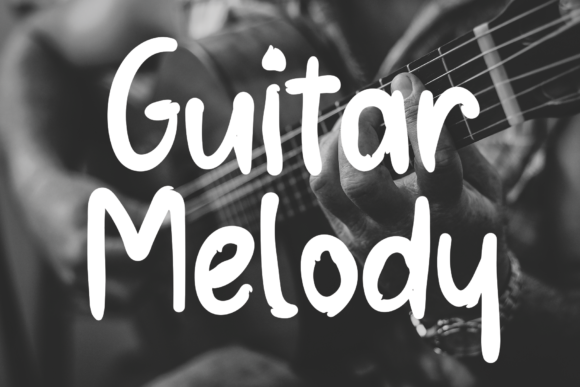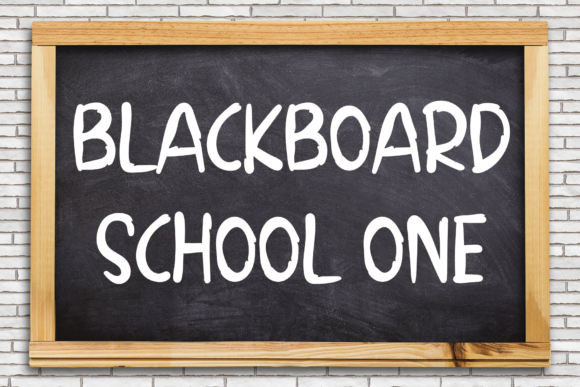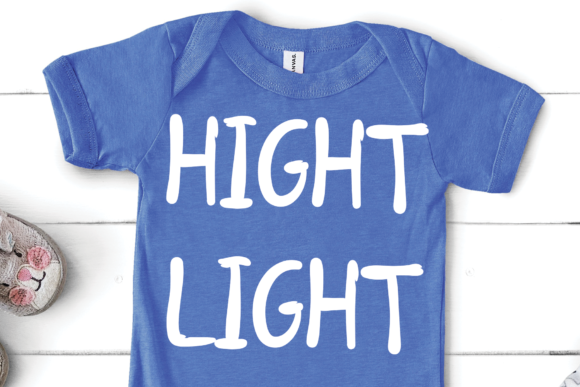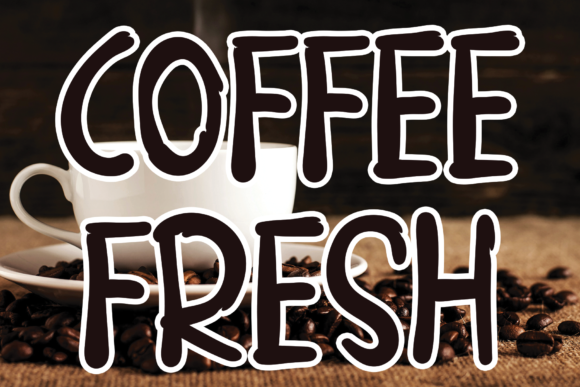
The Ultimate Guide to Green Slime Font: A Fun and Friendly Display Font
I’ll never forget the time I was working on a project for a client’s kids’ party invitations. I had a clear vision of what I wanted to create, but there was one major roadblock: the font. I scoured the internet, tried out dozens of options, but nothing seemed quite right. That was until I stumbled upon Green Slime Font. It was love at first sight! ✨
Green Slime is a fun and friendly display font that can easily stand out from the crowd. Simple yet with a strong visual effect, this font instantly makes your creation more appealing than any others. In this article, we’ll dive into the world of Green Slime Font, exploring its features, how to use it, and some similar alternatives.
An Honest Review of Green Slime Font
What I Love About Green Slime Font
- ✨ Unique and playful design that’s perfect for kids’ projects, party invitations, or any creative endeavor that needs a fun touch
- ✅ Highly legible, even at larger sizes, making it perfect for headings and titles
- 🌈 Versatile and can be used for a wide range of projects, from digital to print
- 👍 Easy to pair with other fonts, thanks to its distinctive style
While Green Slime Font is an excellent choice for many projects, there are a few things to keep in mind: 🤔
- ⚠️ May not be suitable for body text or smaller sizes, as it can become difficult to read
- ⚠️ Limited OpenType features, which might be a drawback for some users
Green Slime Font comes with some fun OpenType features and glyphs that can enhance your designs:
- Stylistic alternates: Experiment with different letterforms to add more personality to your text
- Glyphs: Use the font’s built-in glyphs to add decorative elements to your design
The Backstory of Green Slime Font
Green Slime Font was designed with one goal in mind: to create a fun and friendly display font that would bring a smile to people’s faces. The designer, inspired by childhood memories of playing with slime, set out to capture the playful essence of this beloved toy in a font. The result is a unique and eye-catching font that’s perfect for creative projects.
Q: What is Green Slime Font best used for?
A: Green Slime Font is best used for creative projects that require a fun and playful touch, such as kids’ party invitations, social media graphics, or blog posts.